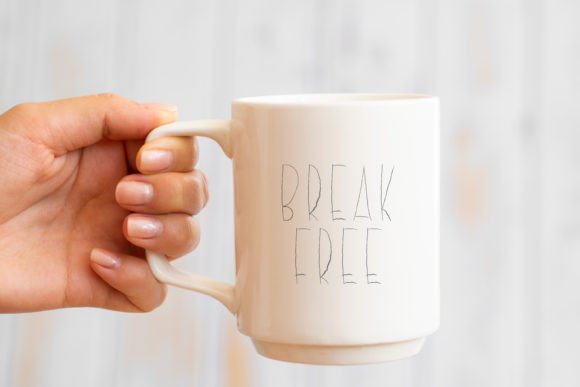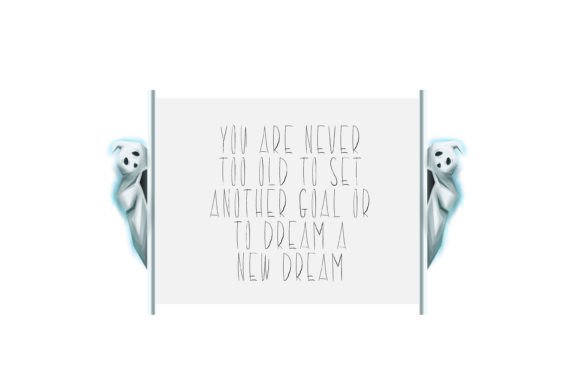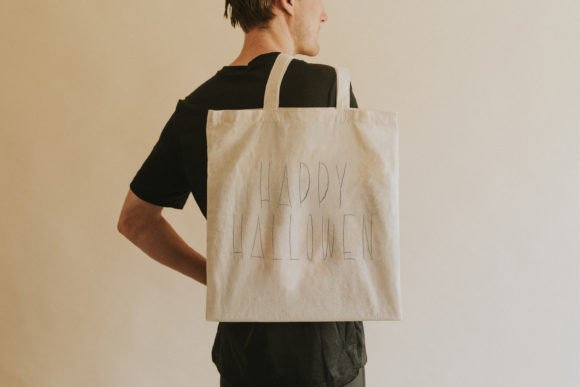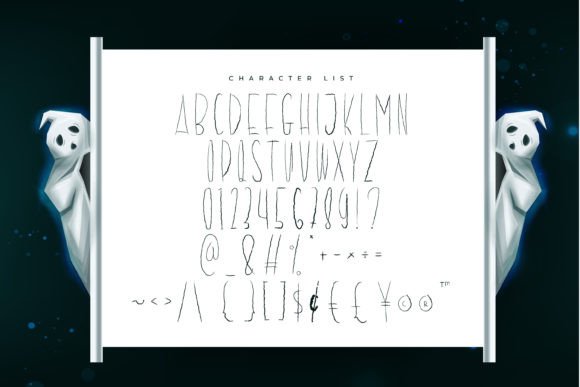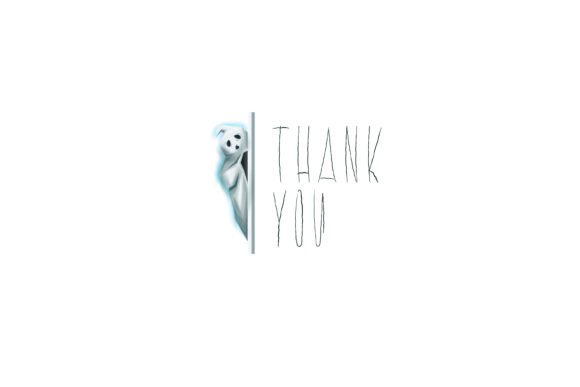
Unleash the Spookiness: Exploring the Ghost Terror Font
Are you a designer, crafter, or DIY enthusiast looking for a font that embodies the perfect blend of playfulness and cuteness? Look no further than the Ghost Terror Font! This delightful display font is designed to bring a touch of trendiness and authenticity to your projects, making it an ideal choice for children’s activities, school projects, and a wide range of creative endeavors.
What is Ghost Terror Font?
Ghost Terror is a unique and captivating display font that is sure to make your designs stand out. Its playful and cute aesthetic is perfect for creating eye-catching titles, headings, and captions that will leave a lasting impression on your audience. Whether you’re working on a children’s book, a school project, or a craft tutorial, this font is sure to add a touch of whimsy and fun to your creations.
Key Features of Ghost Terror Font
- Playful and Cute Design: Ghost Terror Font boasts a delightful design that is both playful and cute, making it perfect for projects aimed at children or those that require a touch of whimsy.
- Trendiness and Authenticity: This font embodies the latest design trends while maintaining an authentic and original feel, ensuring your projects look fresh and modern.
- Display Font: Designed specifically as a display font, Ghost Terror is optimized for use in titles, headings, and captions, making it perfect for grabbing attention and adding emphasis to your text.
- Versatility: From children’s activities and school projects to craft tutorials and DIY guides, Ghost Terror Font can be used across a wide range of creative projects.
Uses of Ghost Terror Font
The versatility of Ghost Terror Font makes it suitable for a variety of applications. Here are some ideas to get you started:
- Children’s Books and Activities: Add a playful touch to storybooks, activity sheets, and educational materials with Ghost Terror Font.
- School Projects: Make your school projects stand out with eye-catching titles and headings that are sure to impress your teachers and peers.
- Craft Tutorials and DIY Guides: Use Ghost Terror Font to add a personal and creative touch to your craft tutorials, DIY guides, and handmade product labels.
- Party Invitations and Decor: Create spooky-fun party invitations and decorations for Halloween or other themed parties with this adorable font.
Tips for Using Ghost Terror Font
To make the most of Ghost Terror Font, here are some tips to keep in mind:
- Pair with Complementary Fonts: Combine Ghost Terror Font with simpler fonts for body text to create visual contrast and enhance readability.
- Experiment with Colors: Take advantage of the font’s playful nature by experimenting with bright, fun colors that match your project’s theme.
- Use for Emphasis: Utilize Ghost Terror Font for headings and titles to draw attention and add emphasis to key information.
Ghost Terror Font is a delightful and versatile display font that brings a touch of playfulness and trendiness to any project. Its cute design and authentic feel make it the perfect choice for children’s activities, school projects, craft tutorials, and a wide range of creative endeavors. By incorporating Ghost Terror Font into your designs, you’re sure to create eye-catching and engaging content that will leave a lasting impression on your audience.